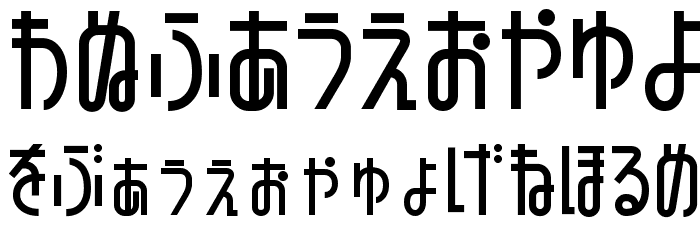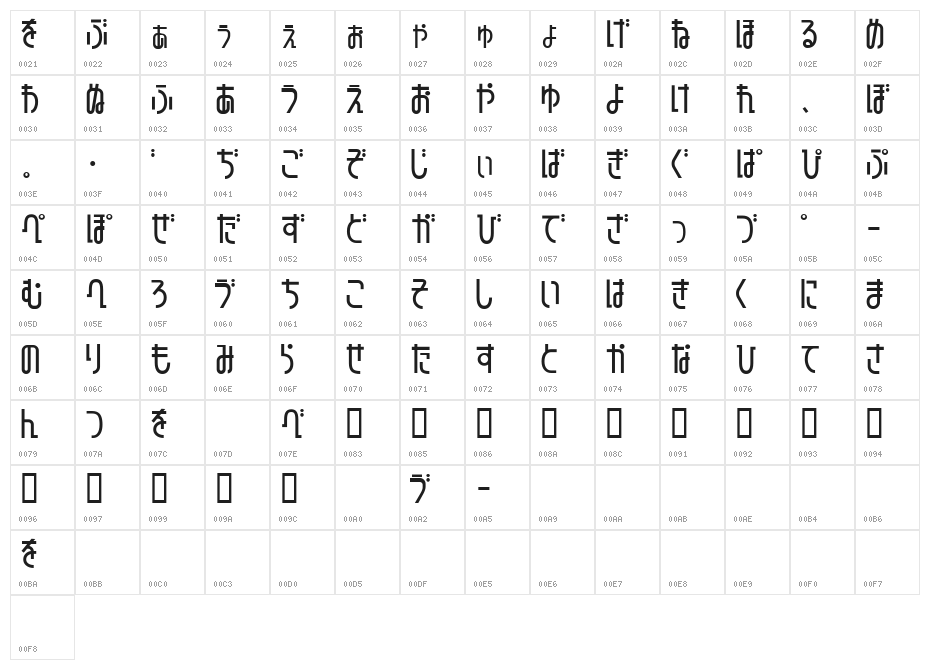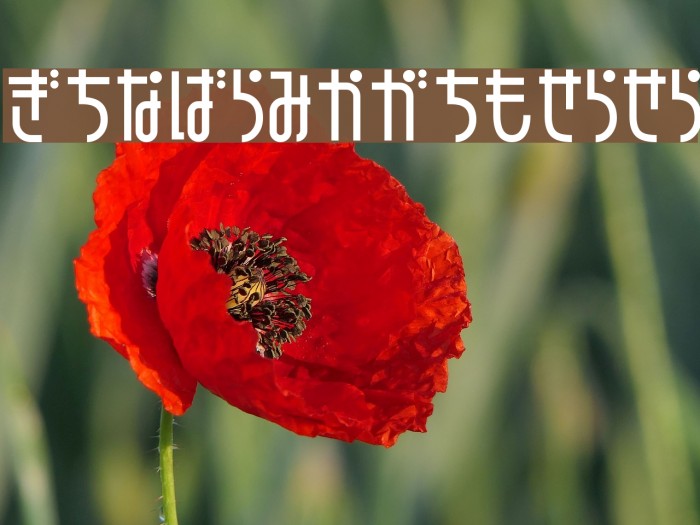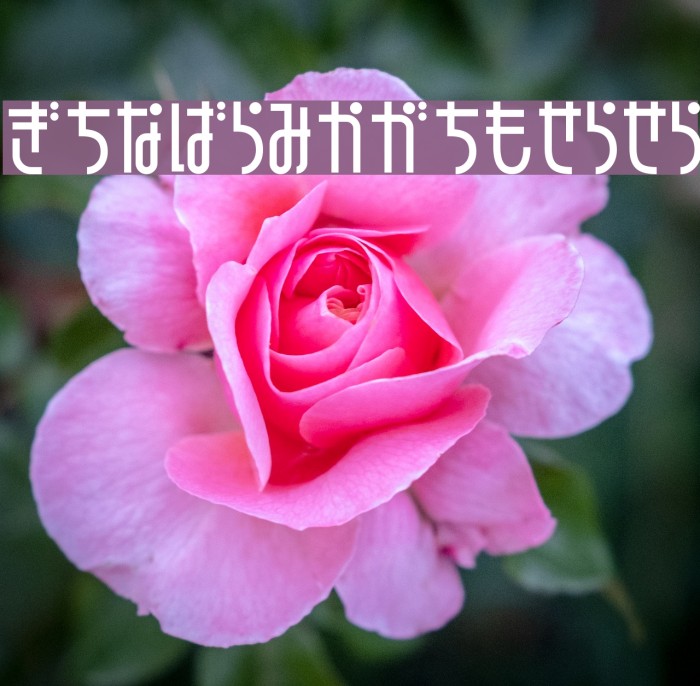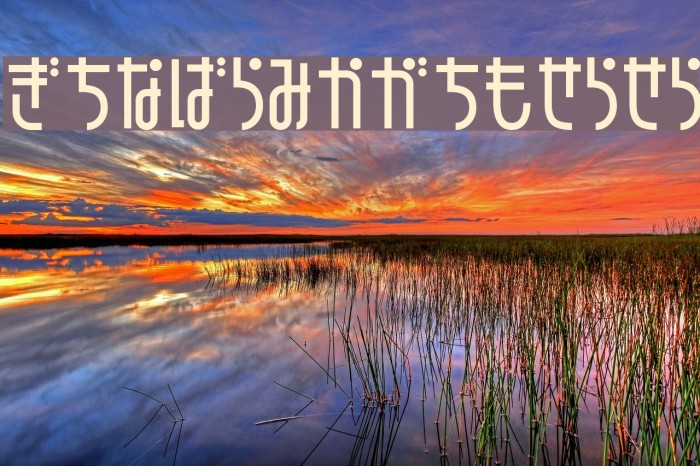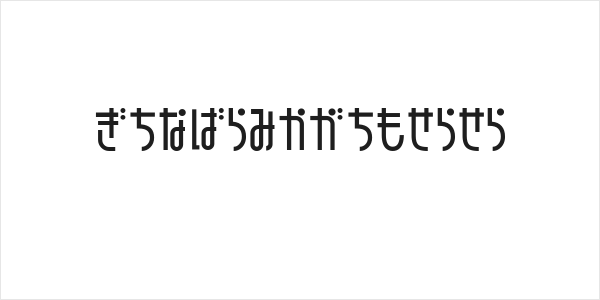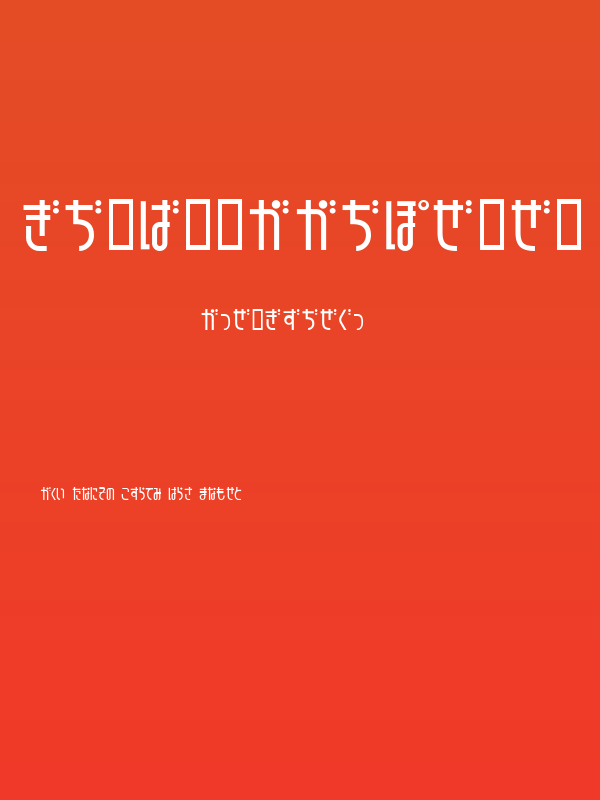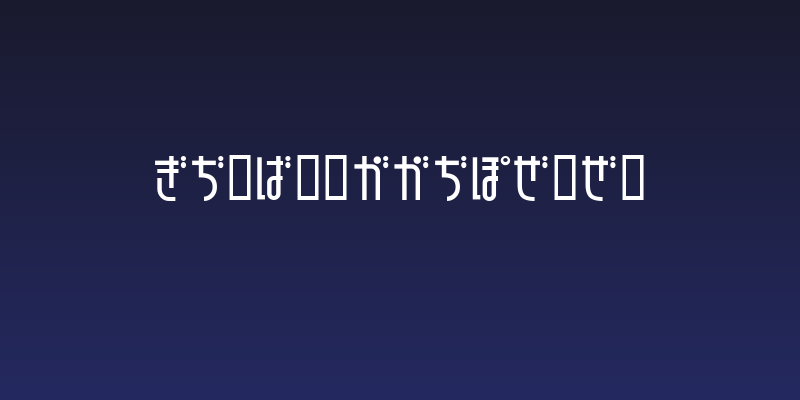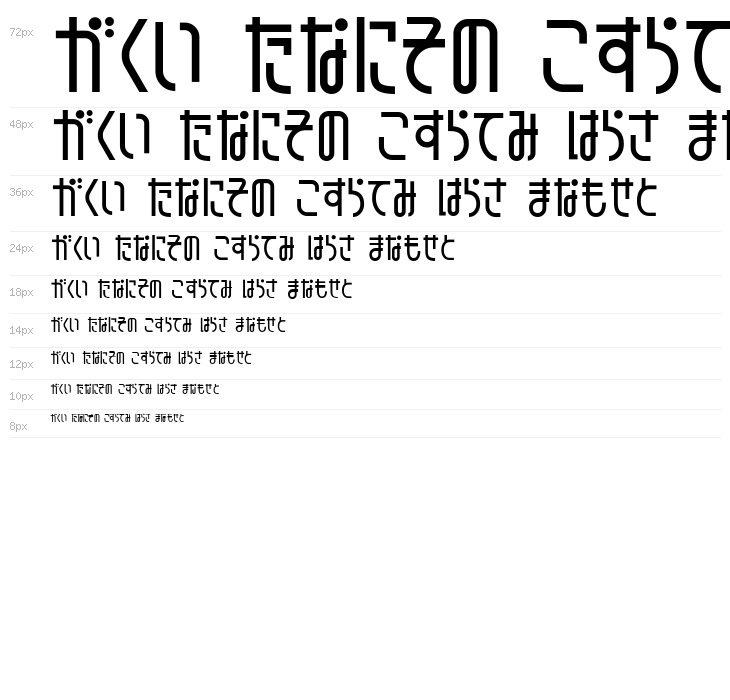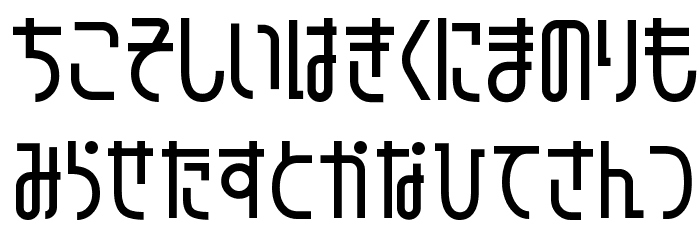
GauFontTampopo Font
GauFontTampopo Description
This font features a clean and modern design with a focus on readability. The characters are well-defined with a consistent stroke width, giving it a uniform appearance. The font has a geometric structure, which is evident in the rounded edges and symmetrical shapes of the characters. The spacing between the characters is balanced, ensuring clarity and legibility. This font is versatile and can be used in various design contexts, from digital interfaces to print media. Its simplicity and elegance make it suitable for both professional and casual applications.